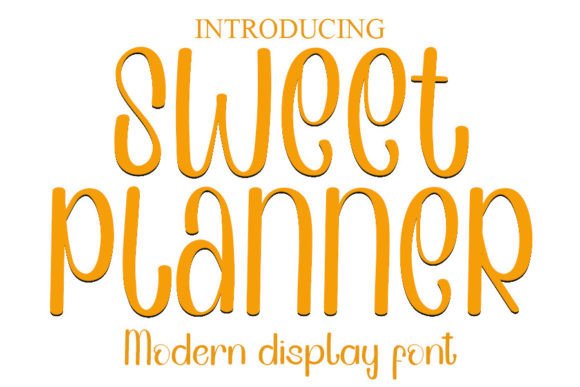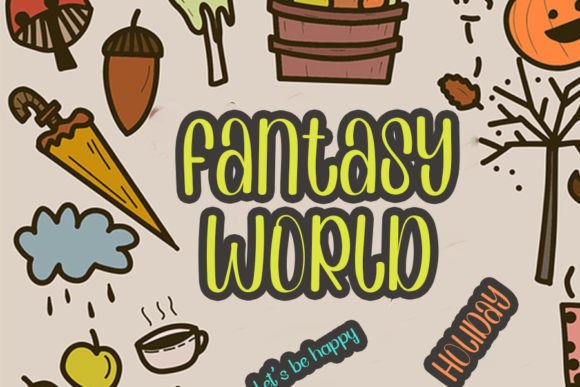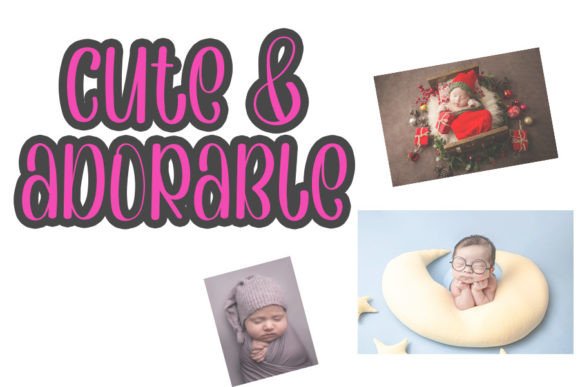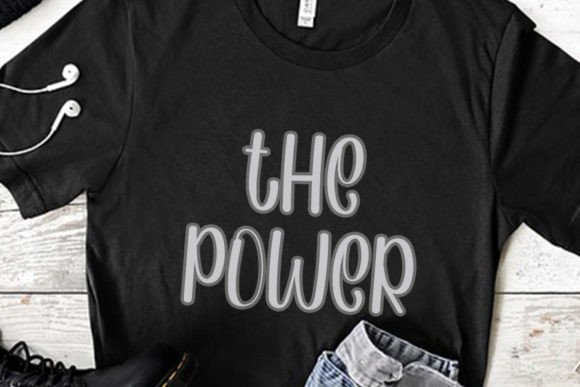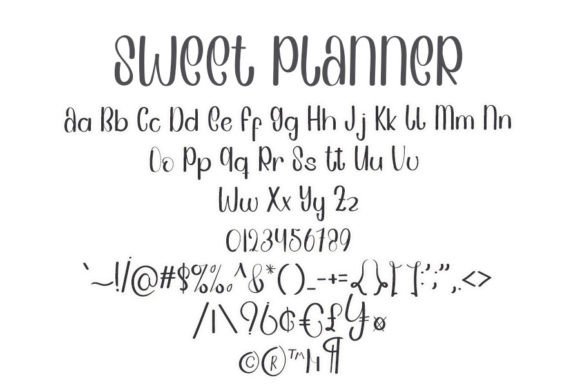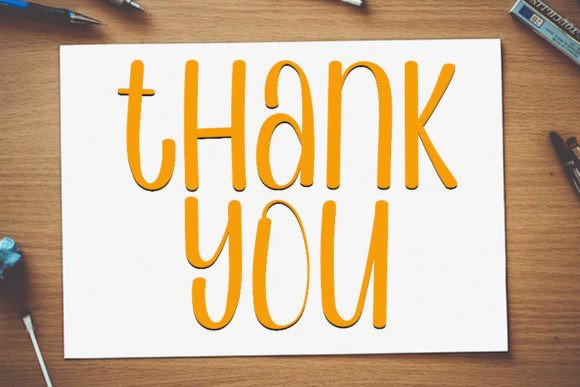
Sweet Planner Font
About Sweet Planner Font
The Sweet Planner Font Download is a stylish handwritten typeface with a modern vibe and a flawless form. Inspired by the elegance of classic calligraphy, this font blends timeless beauty with a fresh, contemporary look. With strokes that are not too thin or too thick, it maintains perfect balance and visual harmony. This makes Sweet Planner versatile enough for both playful designs and professional branding.
Every character flows naturally, giving your designs a smooth and polished appearance. Whether you’re creating wedding invitations, personalized gifts, or digital artwork, the Sweet Planner Font Download ensures that your project looks refined and creative.
Features of Sweet Planner Font
The Sweet Planner Font Download comes with features that make it easy to use and suitable for a wide range of applications:
• Elegant handwritten style with a modern calligraphy influence
• Complete set of uppercase and lowercase letters
• Numbers, punctuation, and special characters included
• PUA-encoded for simple access to glyphs and alternates
• Multilingual support for global design use
Best Uses for Sweet Planner Font
Thanks to its balanced design, the Sweet Planner Font Download can be used in many creative projects. Here are some of the most popular uses:
• Invitations & Greeting Cards – Adds sophistication to weddings, birthdays, and special events
• Logos & Branding – Perfect for businesses that want a modern yet approachable identity
• Social Media Graphics – Elevates posts, quotes, and captions with stylish flair
• Product Packaging – Creates a professional look for labels, tags, and merchandise
• Print Projects – Works beautifully for posters, flyers, magazines, and book covers
• Crafting & DIY – Ideal for planners, scrapbooks, and handmade designs
Why Choose Sweet Planner Font?
Designers and creatives love the Sweet Planner Font Download because it merges elegance with usability. Unlike overly decorative fonts that may sacrifice clarity, Sweet Planner remains easy to read while maintaining a stylish handwritten look. Its balance of thickness and spacing makes it reliable for large headings as well as smaller text.
The versatility of this font ensures it can handle multiple roles. For example, you could use it on social media branding one day and wedding stationery the next, all while keeping a cohesive and professional aesthetic.
The Sweet Planner Font Download is an essential addition to your font library if you value modern elegance and creative flexibility. With its smooth handwritten strokes, it offers a timeless quality while staying fresh and contemporary.